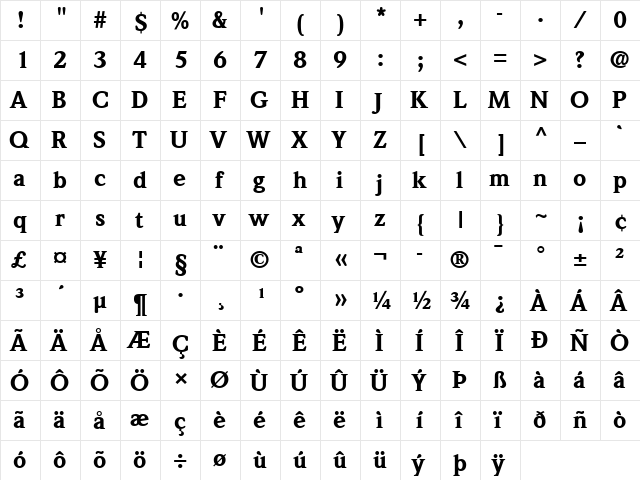
Weidemann LT Medium Bold
Design Context for Weidemann LT Medium Typeface
Weidemann LT Medium offers clean, dependable letterforms without strong stylistic allegiance, making it a practical choice for designers who need flexibility. Its bold stroke weight gives it real presence on the page.